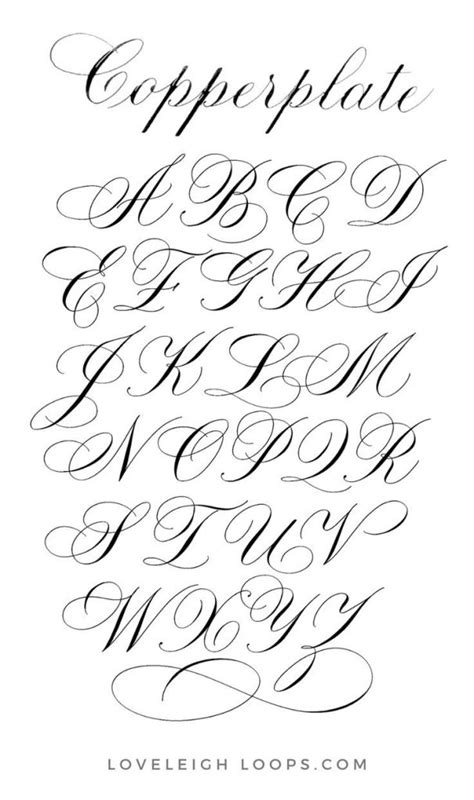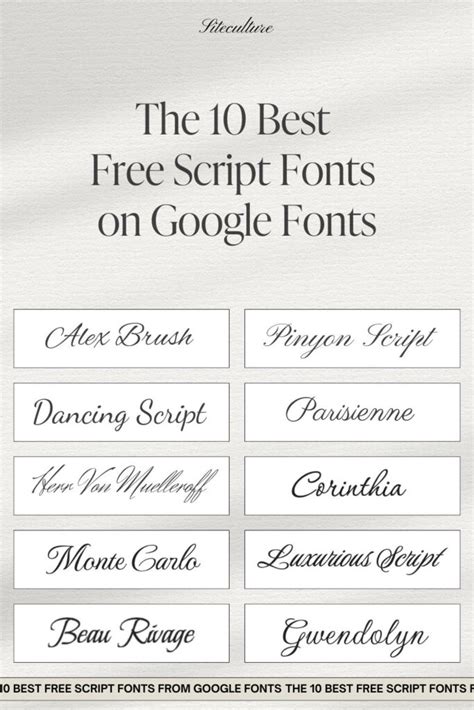
Reviving the Elegance of 19th Century Fonts in Microsoft Word: A Guide
Discover the beauty of 19th century typography with Microsoft Word's collection of vintage fonts. Add a touch of elegance to your next project.
When it comes to fonts, the 19th century was a treasure trove of beautiful and intricate designs. From the elegant serifs of Bodoni to the bold strokes of Clarendon, these fonts captured the essence of the Victorian era. And while we may not use them in our day-to-day lives, Microsoft Word has made it possible for us to delve into the world of 19th century typefaces with just a few clicks.
For those who appreciate the art of typography, Microsoft Word provides a plethora of options that pay homage to the golden age of fonts. Whether you're looking to add a touch of vintage charm to your resume or create a stunning wedding invitation, these fonts offer the perfect blend of classic elegance and modern convenience.
So why not take a step back in time and explore the world of 19th century fonts in Microsoft Word? With a range of styles, from minimalistic sans-serifs to ornate display types, there's something for everyone to enjoy. Who knows, you may just find your new favorite font.
Introduction
Fonts are an essential aspect of any piece of writing. They help us communicate our message effectively by conveying the right tone and mood. The fonts used in the 19th century were as varied as the events that took place during that time. In this article, we will explore some of the popular fonts used in the 19th century and how to use them in Microsoft Word.
Old English
Old English is a font that originated in the 12th century but gained popularity in the 19th century. It is a heavy and ornate font that was commonly used in books and newspapers of the time. However, it can be challenging to read, and you should use it sparingly. To use Old English in Microsoft Word, select the font from the drop-down menu or type Old English in the font box.
Victorian
The Victorian era was known for its elaborate designs and decorations. The fonts used during this time were no exception. Victorian fonts are typically bold and decorative, with sharp edges and intricate details. They were often used for invitations, posters, and advertisements. To use Victorian fonts in Microsoft Word, search for Victorian in the font box, or download a Victorian font from a font website.
Copperplate
Copperplate is a timeless font that gained popularity during the 19th century. It is a classic serif font that is elegant and easy to read. Copperplate was commonly used for invitations, certificates, and legal documents. To use Copperplate in Microsoft Word, select the font from the drop-down menu or type Copperplate in the font box.
Gothic
Gothic fonts originated in the Middle Ages and gained popularity in the 19th century. They are characterized by their sharp edges and bold lines. Gothic fonts were often used in books, newspapers, and posters. To use Gothic fonts in Microsoft Word, search for Gothic in the font box, or download a Gothic font from a font website.
Script
Script fonts are elegant and flowing, with letters that connect to one another. They were popular in the 19th century for invitations, letters, and other formal documents. Script fonts can be challenging to read in long passages of text, so they should be used sparingly. To use Script fonts in Microsoft Word, select the font from the drop-down menu or type Script in the font box.
Art Nouveau
Art Nouveau was an artistic movement that took place in the late 19th century. The fonts used during this time were characterized by their flowing lines and organic shapes. Art Nouveau fonts were often used for posters, advertisements, and book covers. To use Art Nouveau fonts in Microsoft Word, search for Art Nouveau in the font box, or download a font from a font website.
Slab Serif
Slab Serif fonts are bold and blocky, with thick lines and squared edges. They gained popularity in the 19th century for their readability and versatility. Slab Serif fonts were often used for headlines, titles, and logos. To use Slab Serif fonts in Microsoft Word, select the font from the drop-down menu or type Slab Serif in the font box.
Sans Serif
Sans Serif fonts are clean and modern, without the serifs found in other fonts. They gained popularity in the 19th century for their simplicity and readability. Sans Serif fonts were often used for body text, captions, and subheadings. To use Sans Serif fonts in Microsoft Word, select the font from the drop-down menu or type Sans Serif in the font box.
Conclusion
The fonts used in the 19th century were varied and reflected the events and artistic movements of the time. In Microsoft Word, you can easily incorporate these fonts into your writing by selecting them from the drop-down menu or downloading them from a font website. Remember to use these fonts sparingly and appropriately, depending on the tone and mood you want to convey.
Finally, to answer the third question, there are many free 19th century fonts available for download online. Some popular options include:
- - Old Standard TT
- - Libre Baskerville
- - Crimson Text
- - Playfair Display
Overall, if you're interested in using 19th century fonts in Microsoft Word, there are many options available. Whether you choose to use a pre-installed font or download a new one, adding a touch of historical elegance to your documents has never been easier.